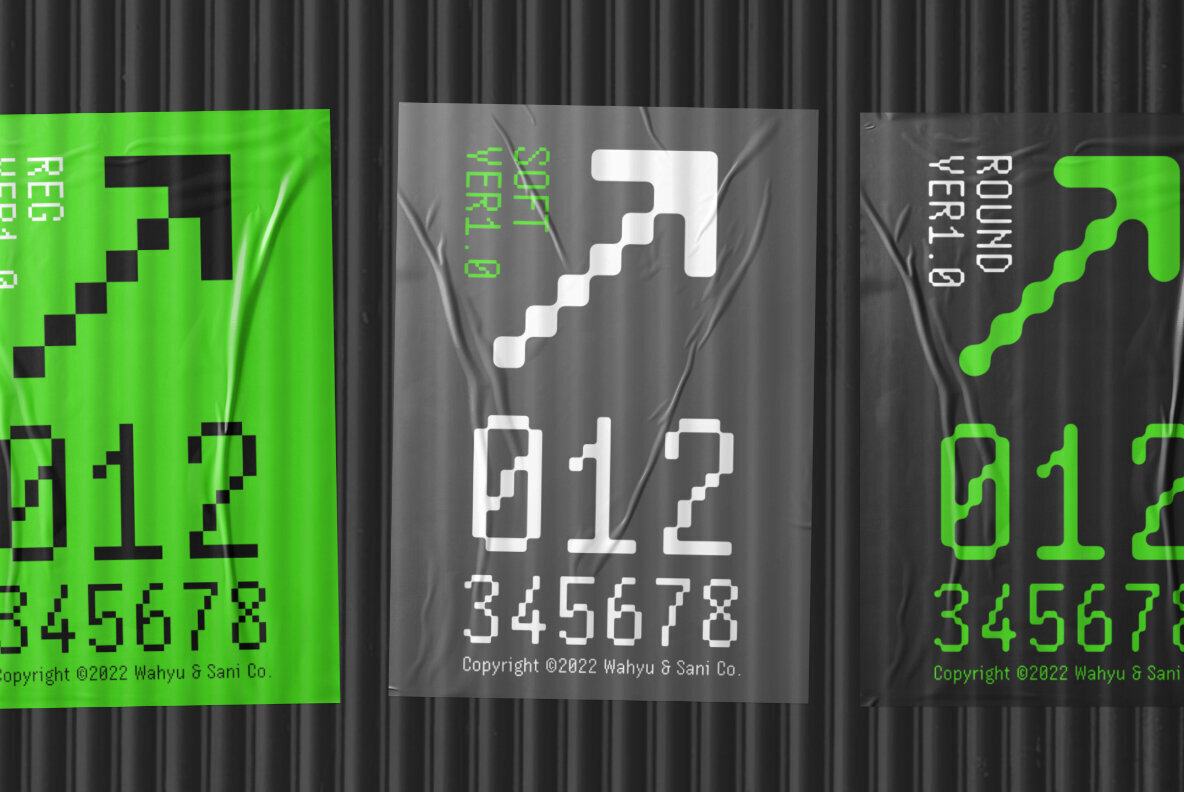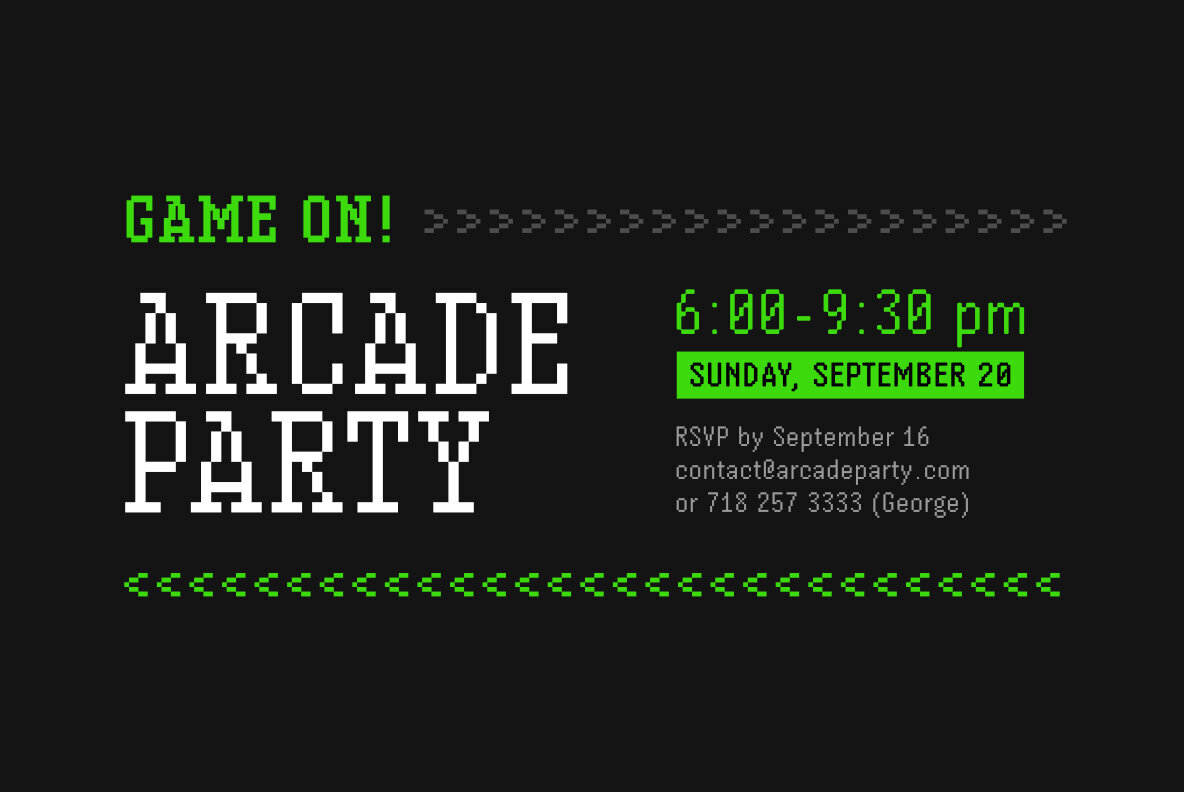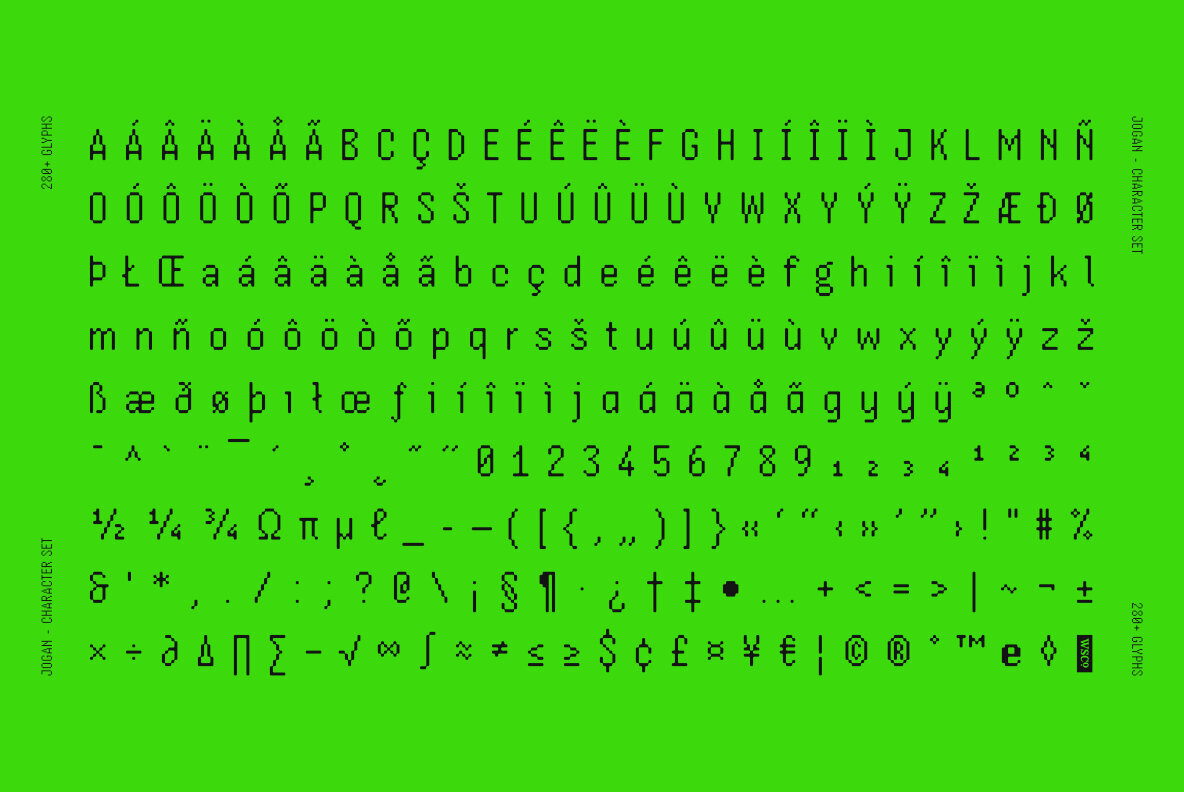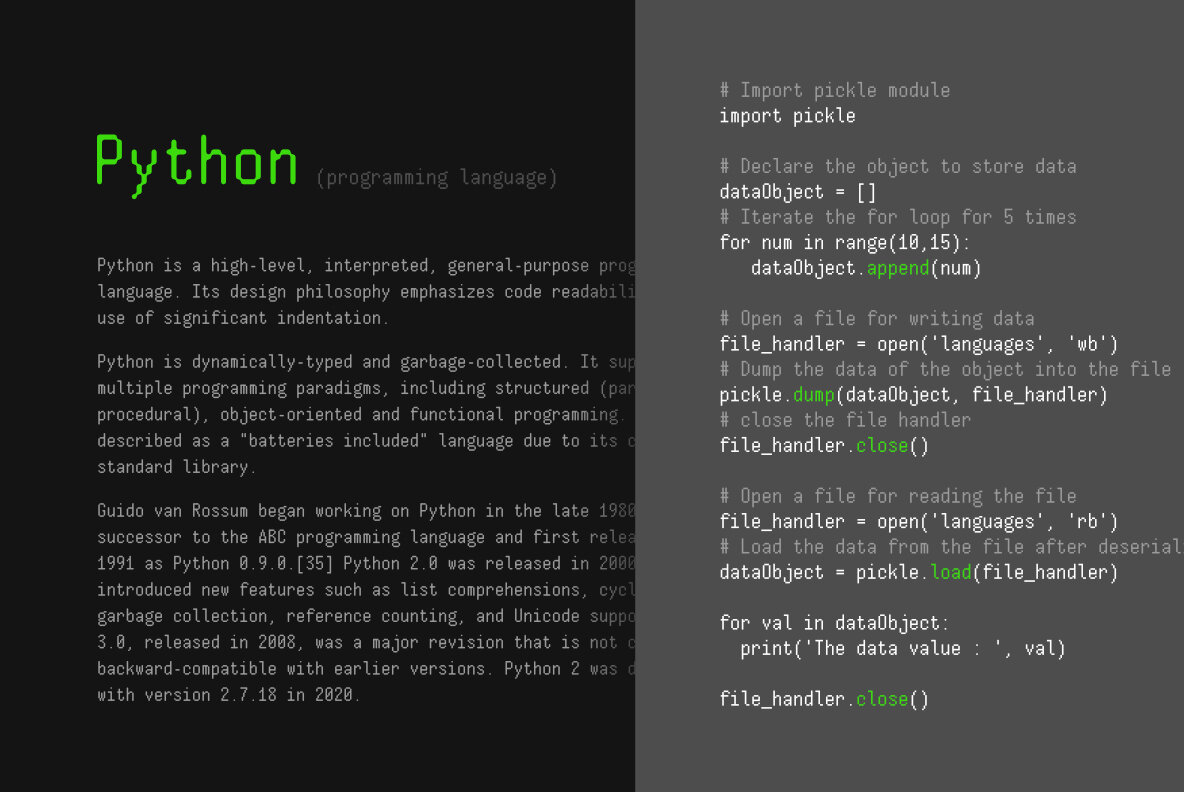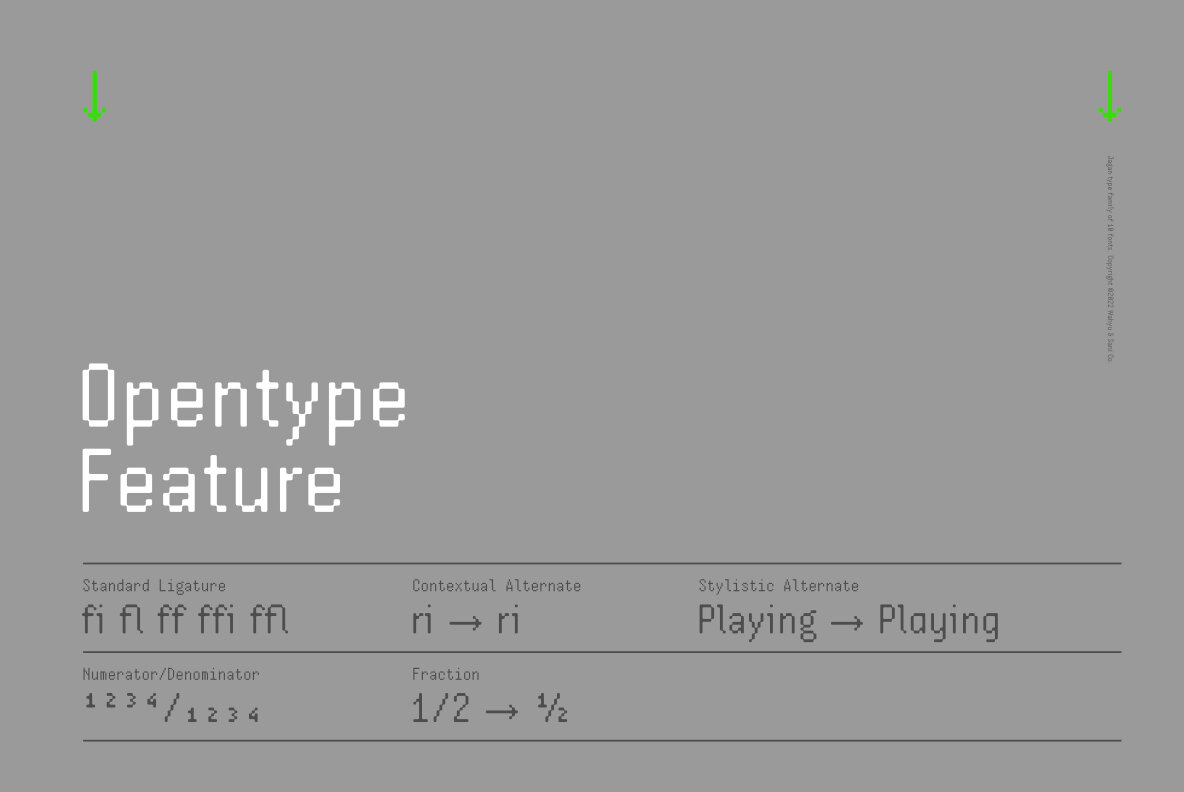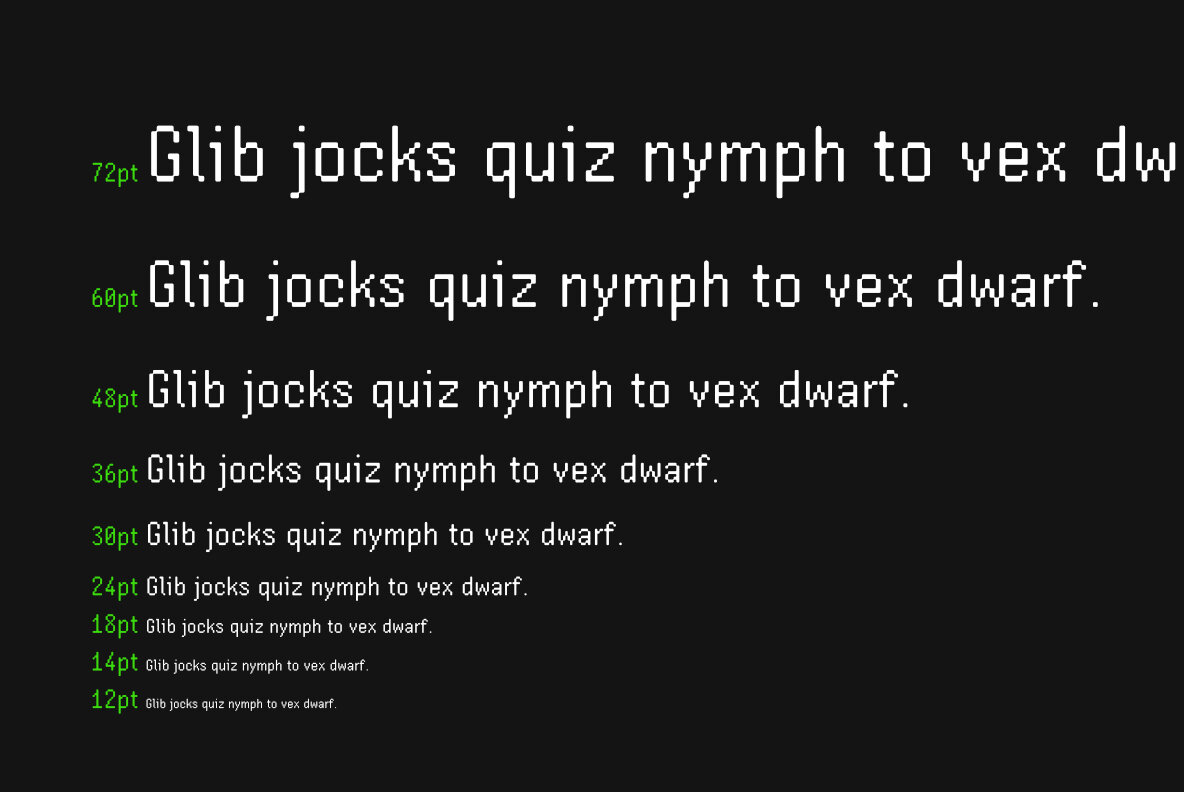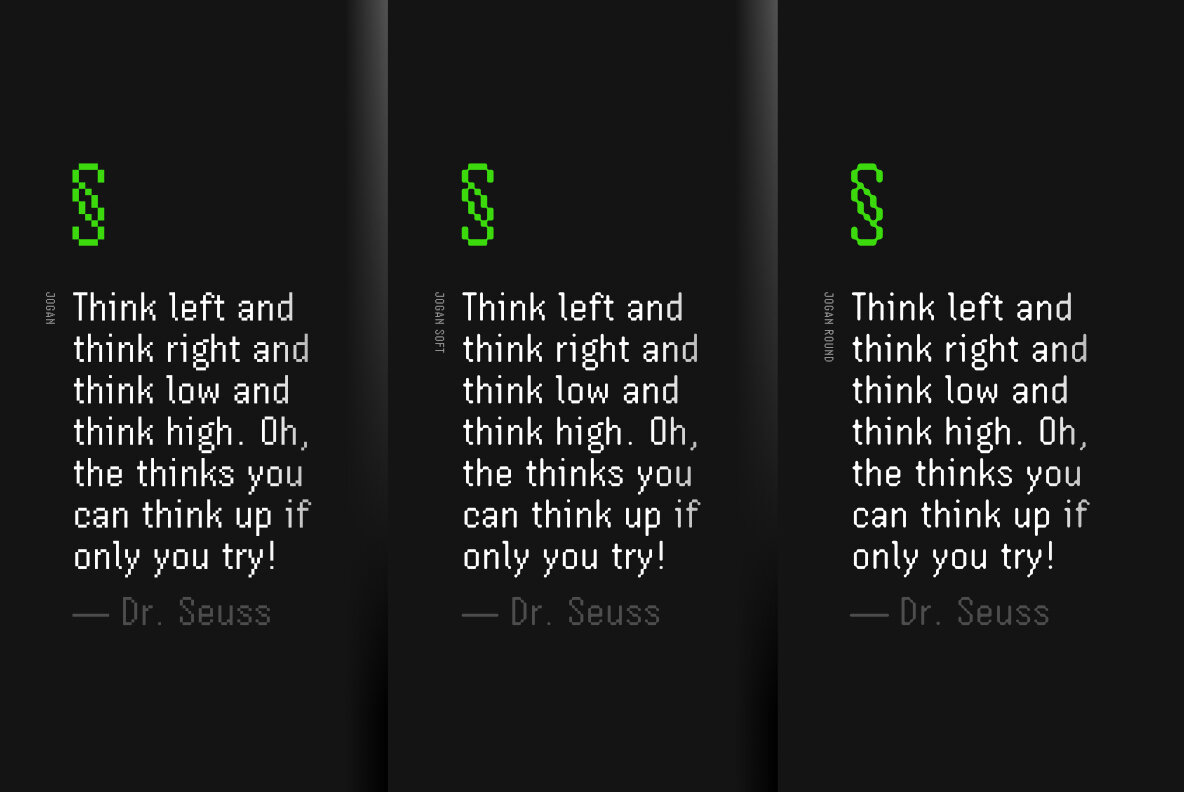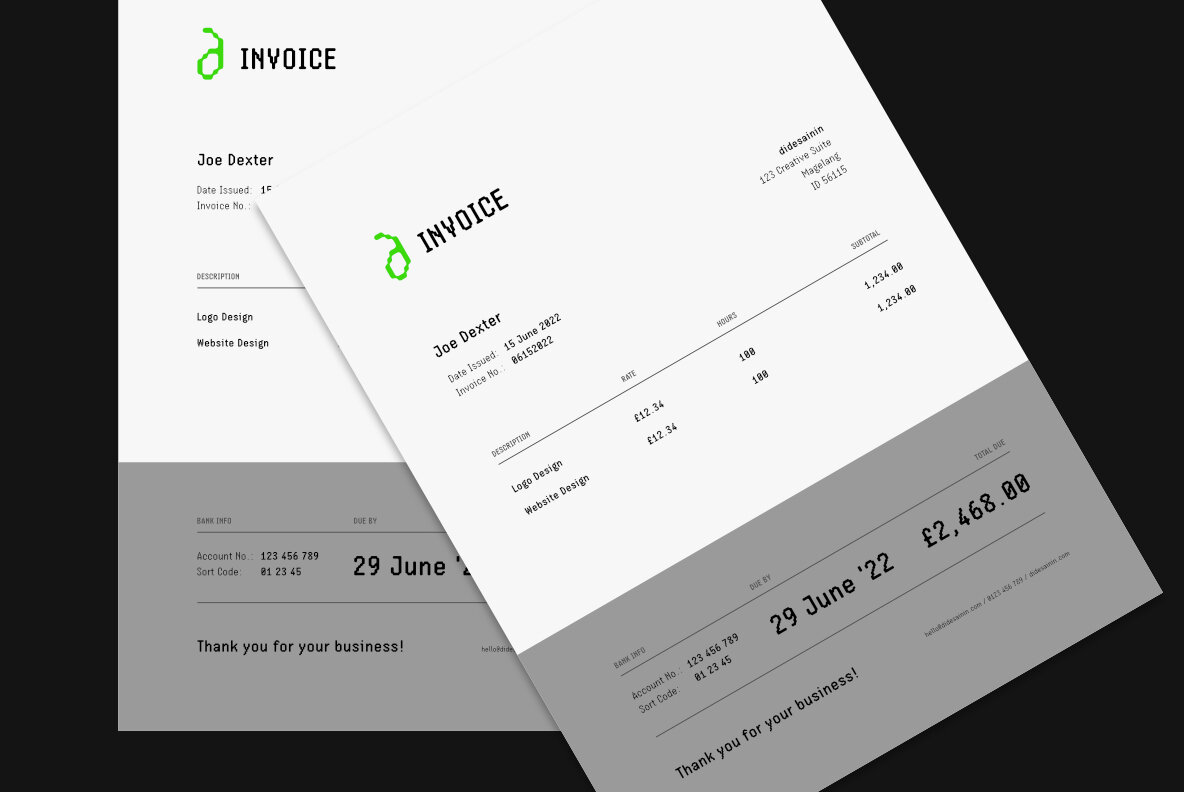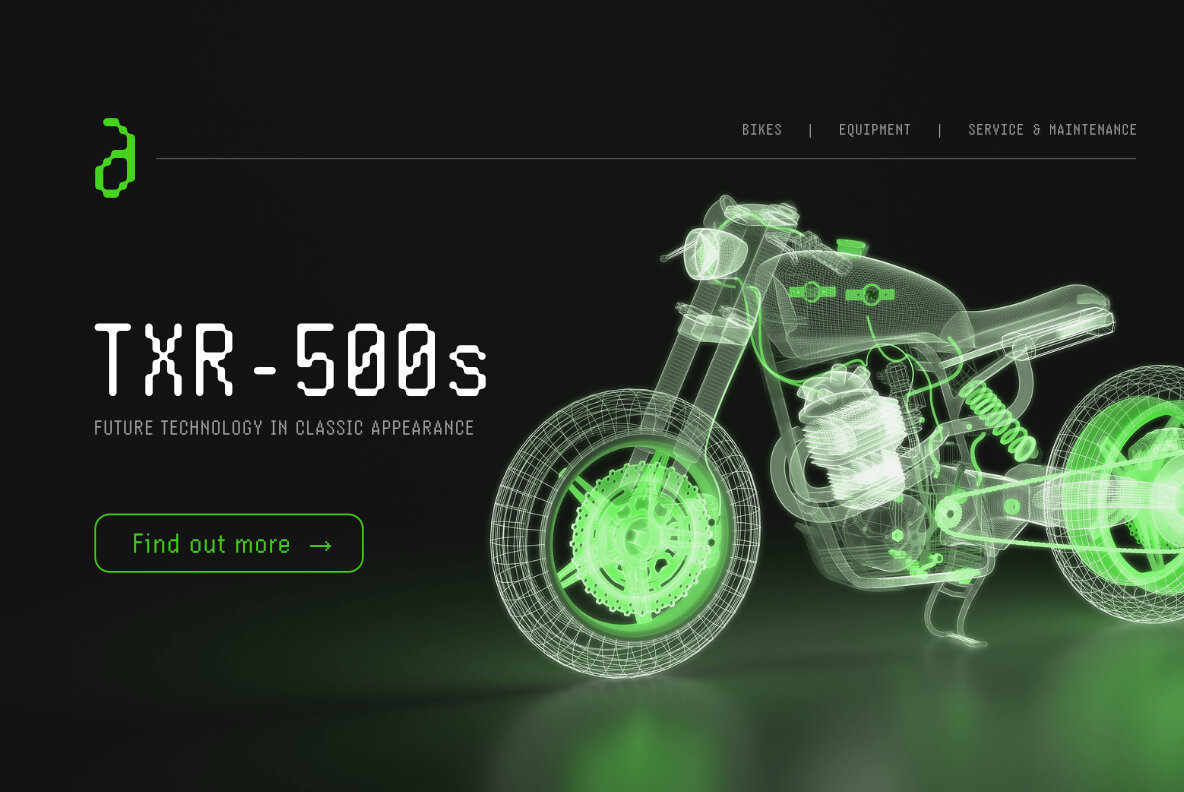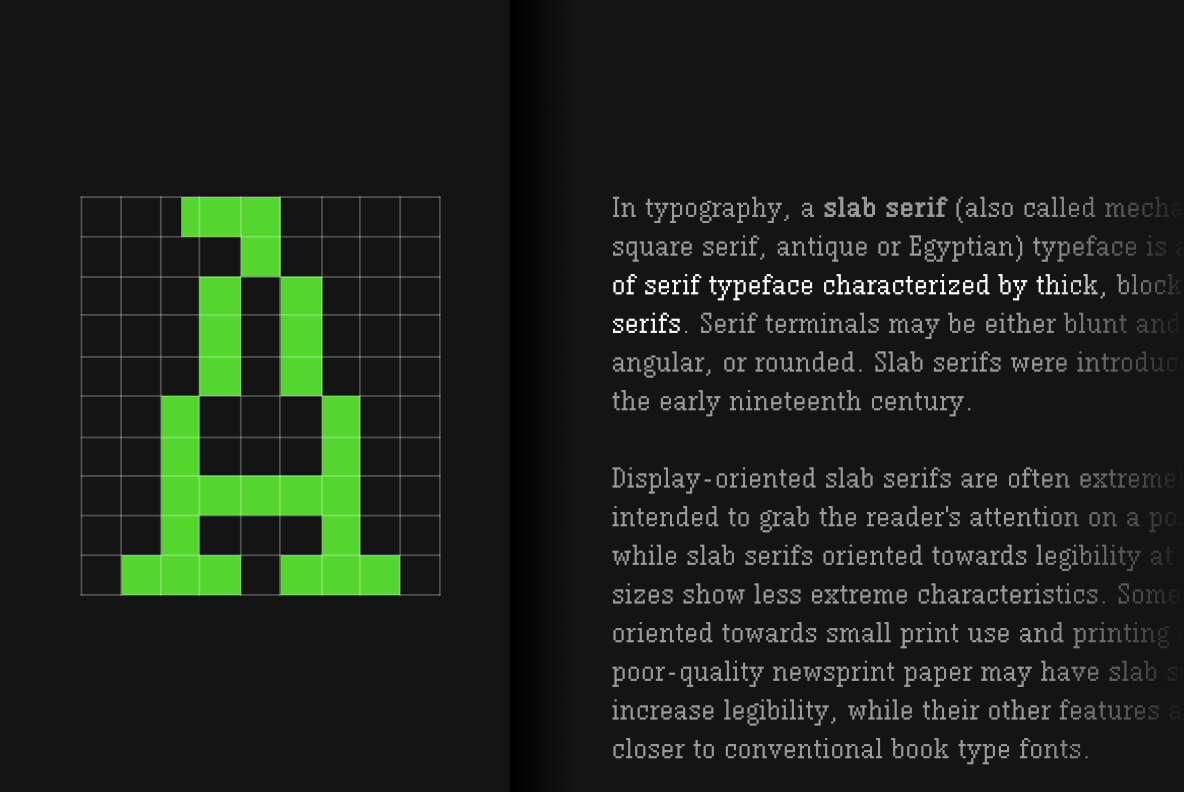
Jogan Font
Inspired by the early days of video games where the graphics were made of squares (pixels), Wahyu Wibowo comes up with pixel based typeface design, Jogan, but instead of having medium width, he decided to make it narrow which is rarely exist in pixel style font. The style were expanding in the development process, so the family have 4 subfamilies:
- Jogan (regular, bold and monospace)
- Jogan Soft (regular, bold and monospace)
- Jogan Round (regular and monospace)
- Jogan Slab (regular and bold)
Each Jogan font style contains 280+ glyphs which covers Western Europe languages:
Afrikaans, Albanian, Asu, Basque, Bemba, Bena, Breton, Catalan, Chiga, Cornish, Danish, Dutch, English, Filipino, French, Friulian, Galician, German, Gusii, Indonesian, Irish, Italian, Kabuverdianu, Kalenjin, Kinyarwanda, Luo, Luxembourgish, Luyia, Machame, Makhuwa-Meetto, Makonde, Malagasy, Manx, Morisyen, North Ndebele, Norwegian Bokmål, Norwegian Nynorsk, Nyankole, Oromo, Portuguese, Quechua, Romansh, Rombo, Rundi, Rwa, Samburu, Sango, Sangu, Scottish Gaelic, Sena, Shambala, Shona, Soga, Somali, Spanish, Swahili, Swedish, Swiss German, Taita, Teso, Uzbek (Latin), Volapük, Vunjo, Zulu.
Retro, retro-futuristic, modern, techno theme projects fit perfectly with this typeface, any works from logo, poster, video, headlines, titles, and more!